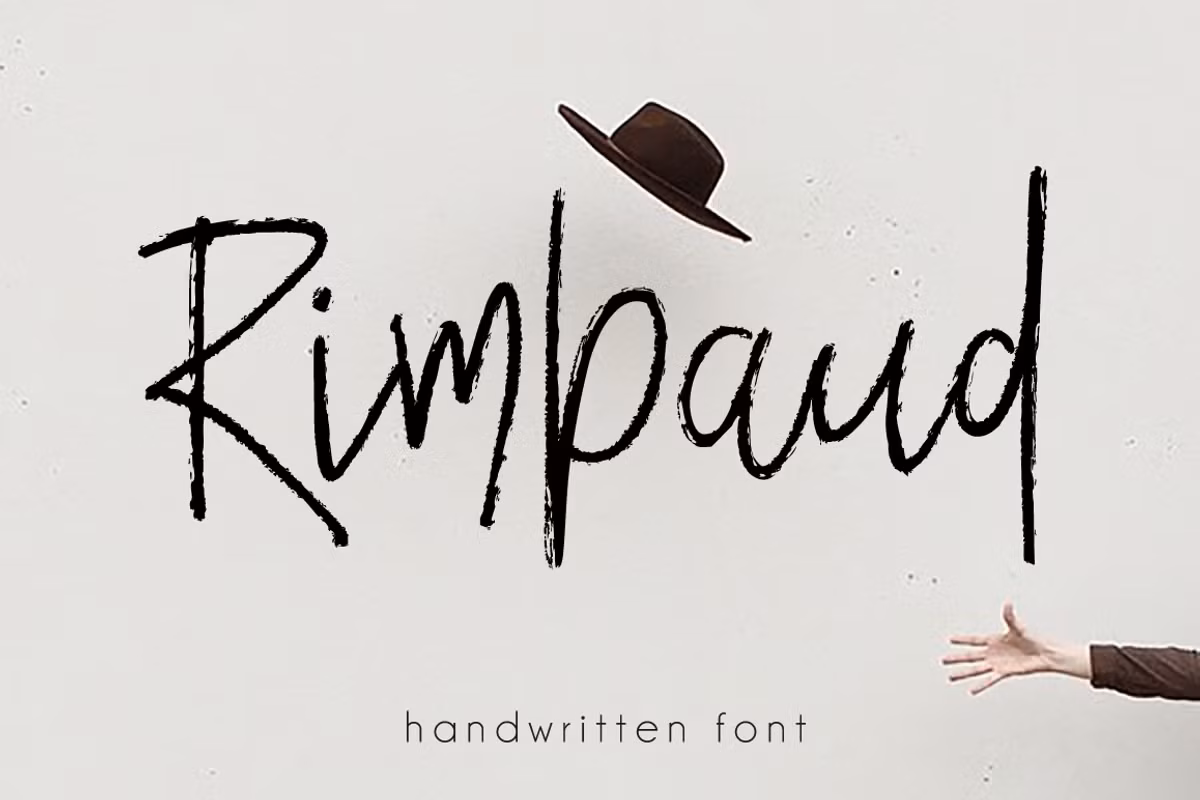
Rimbaud Script Font is perfect for literary magazine designs, poetic event promotions, artistic book covers, creative writing materials, cultural institution branding, sophisticated editorial layouts, artistic signature designs, literary festival graphics, intellectual brand identities, academic publication headers, creative portfolio projects, and distinguished literary communications.
Rimbaud Script Font is exciting because it captures the artistic genius and revolutionary spirit of literary creativity through its flowing script letterforms that embody the passionate intensity, intellectual depth, and artistic rebellion that defines great poetry and literary expression. This exceptional typeface features elegant character strokes with artistic flair that reflects the sophisticated beauty of handwritten manuscripts and the timeless appeal of literary craftsmanship. The font's artistic aesthetic creates deep emotional connections with audiences who appreciate literary culture, intellectual pursuits, and the transformative power of written art.
Rimbaud Script Font includes comprehensive font families: Regular Literary Style, Bold Passionate Weight, Light Delicate Touch, Medium Artistic Balance, Italic Flowing Grace, Condensed Verse Format, Extended Prose Width, Decorative Flourish Version, Shadow Depth Effects, and Special Literary Symbols, providing complete solutions for literary and artistic design projects that celebrate intellectual creativity and poetic expression.
This sophisticated typography solution transforms ordinary communications into artistic literary experiences through its authentic poetic aesthetic and intellectual design language. Rimbaud Script Font Free Download enables designers and literary brands to access premium artistic typography that instantly adds sophistication, intellectual depth, and literary appeal to any creative project. The font's carefully crafted artistic elements ensure authentic literary character while maintaining excellent readability and distinctive poetic presence.
Literary organizations, cultural institutions, and artistic businesses trust Rimbaud Script Font for its ability to communicate intellectual sophistication, artistic excellence, and literary heritage to audiences seeking authentic cultural experiences and poetic brand connections. The typeface's elegant construction performs beautifully across various applications, from intimate literary communications to large-scale cultural branding campaigns. Its extensive character support includes multilingual capabilities and literary-themed design elements that enhance sophisticated artistic brand presentations.
The creative inspiration behind Rimbaud Script Font draws from the rich tradition of literary manuscripts, poetic expression, and the enduring influence of great writers who shaped cultural and artistic movements. This literature-focused approach creates a font that feels genuinely artistic while maintaining contemporary relevance across different literary contexts and intellectual brand expressions.
Whether creating literary publication identities, cultural event materials, or artistic marketing campaigns, this script font delivers exceptional results that honor the legacy of literary artistry and intellectual creativity. Download Rimbaud Script Font today and discover how premium literary typography can transform your design projects into sophisticated expressions of poetic beauty, intellectual depth, and the artistic excellence that defines the most distinguished literary and cultural communications.